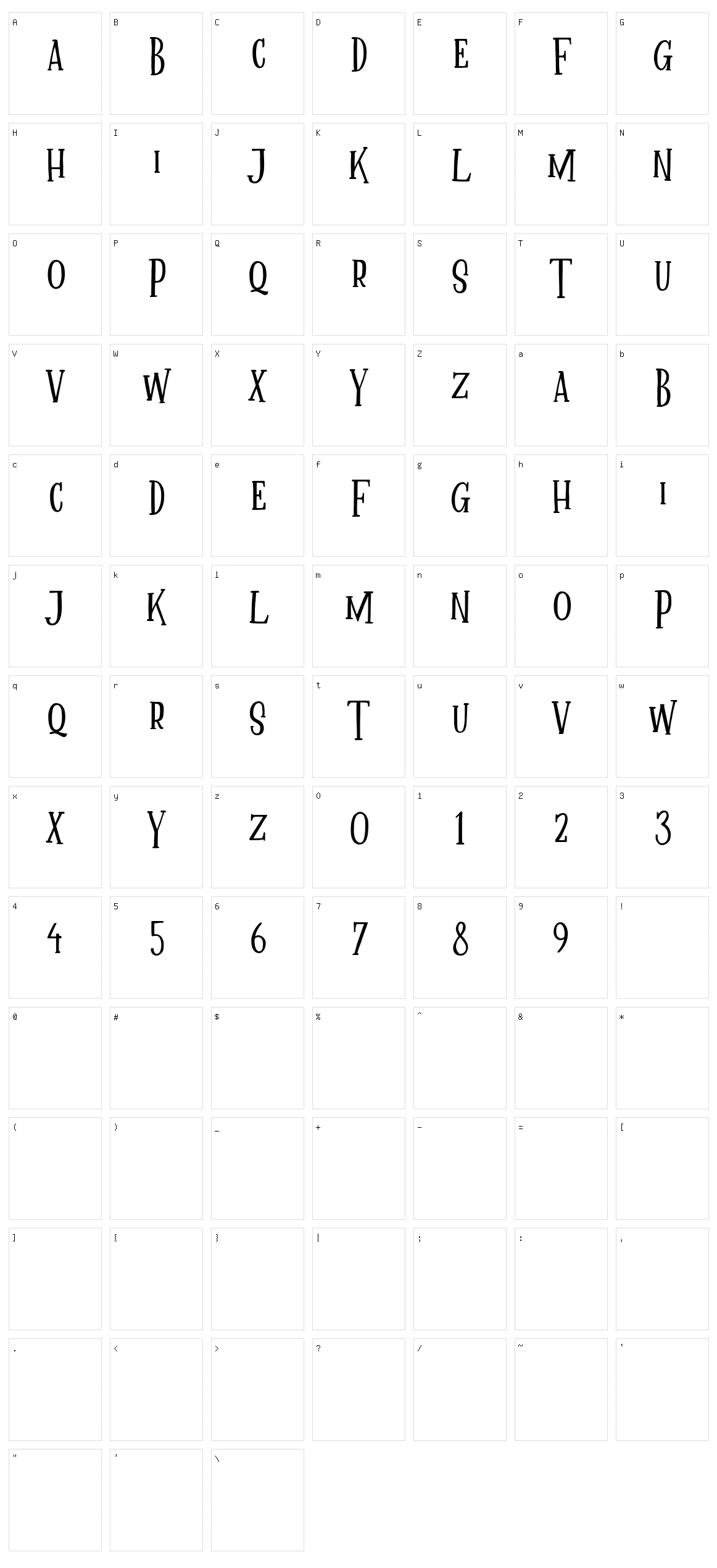
The free font Mallica Fairytale is carefully designed by olexstudio, showcasing a thoughtful balance of creativity and usability and falls under the Cartoon font style. When you download the ZIP file, it contains only 23.43 KB of font files, making it lightweight and quick to download. Please review the license details below to understand permitted usage and distribution rights. If license information is not available, we recommend using this font for personal projects only or contacting the author directly for commercial usage permissions.